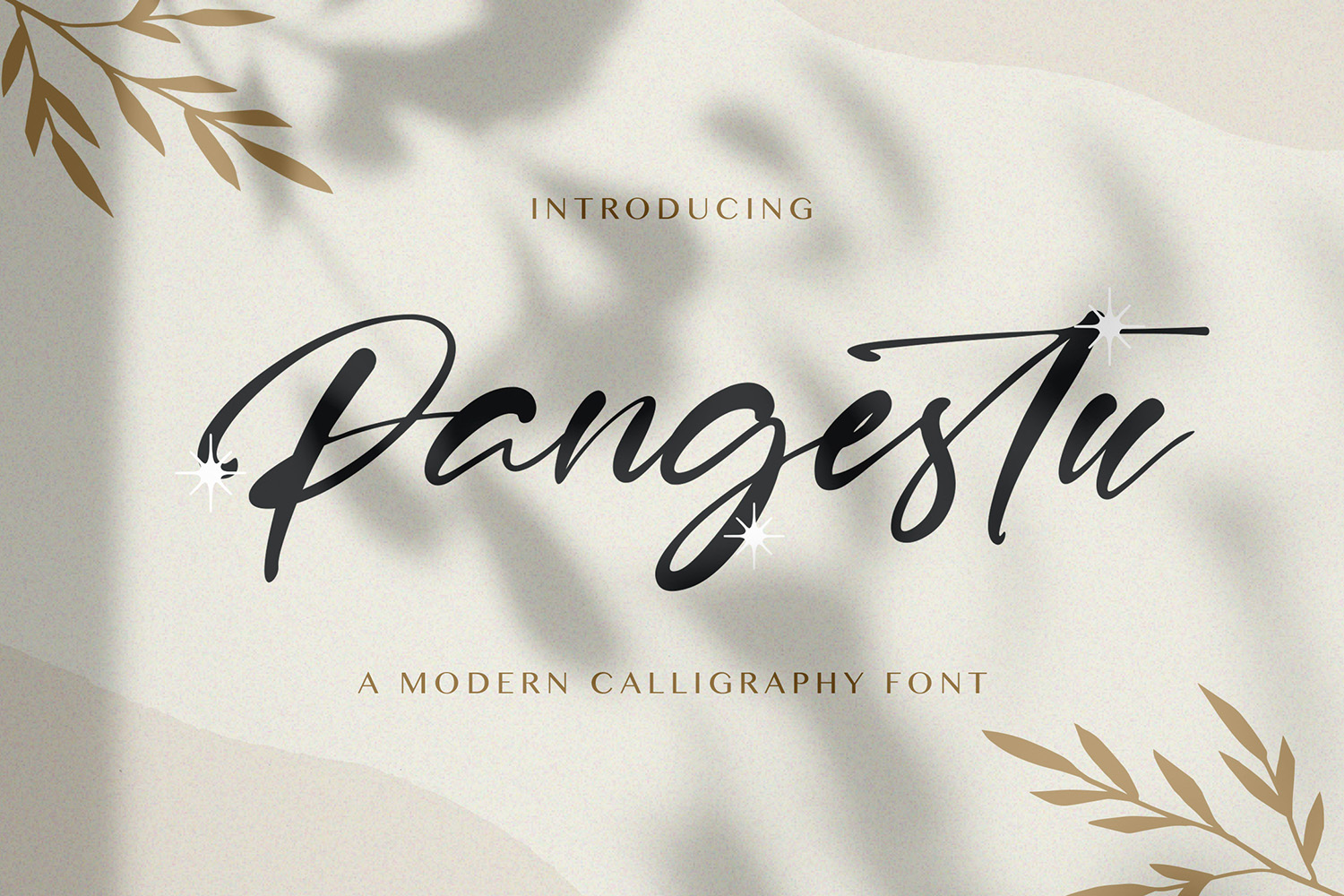
Pangestu Free Font
Pangestu Free Font is a refined handwritten font, meticulously crafted to capture hearts as a top choice. Balancing its sophisticated calligraphic essence with a modern and invigorating vibe, it’s sure to captivate. Embrace it and elevate your projects to new heights of excellence. This free typeface was designed by a talentedΒ StringLabs Creative. If you like it don’t forget to check out the full version.